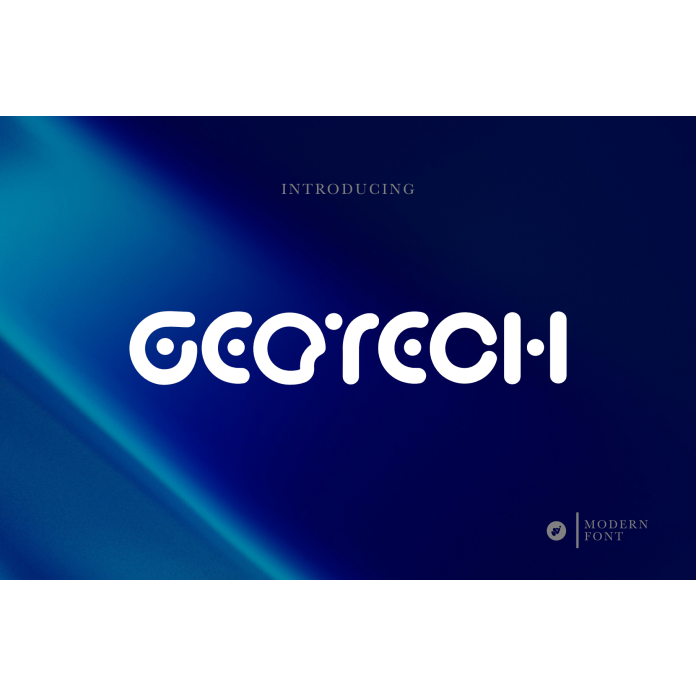
This modern, minimalist technology font is suitable for various design needs that want to convey a futuristic, innovative, and clean impression. Here are some examples of its use: